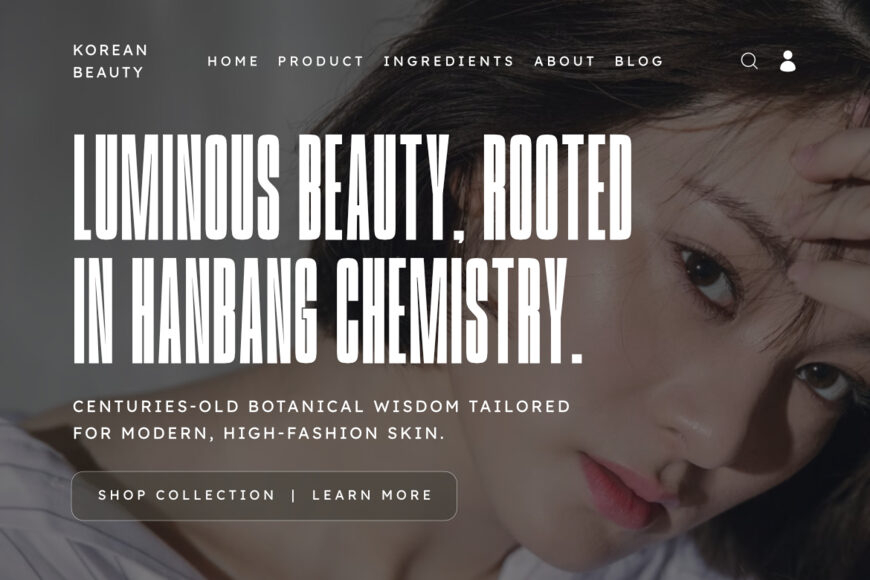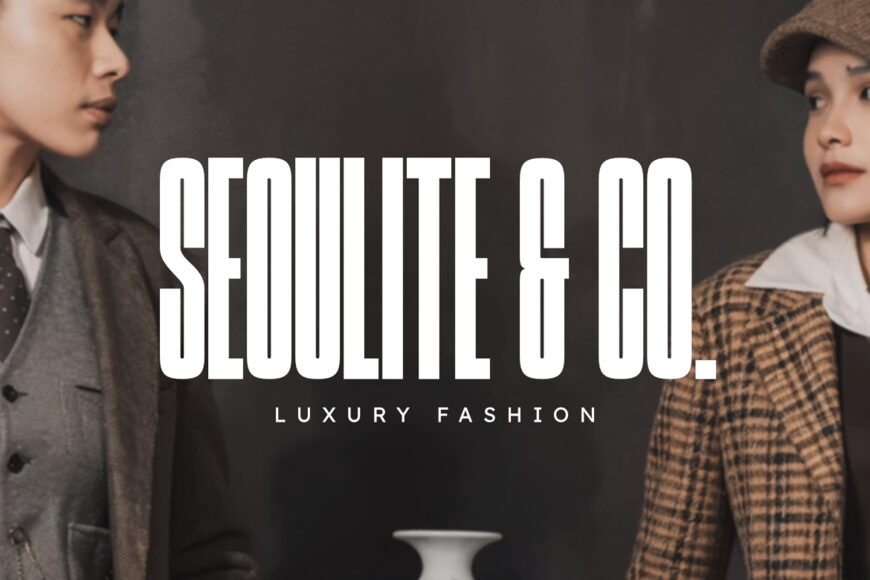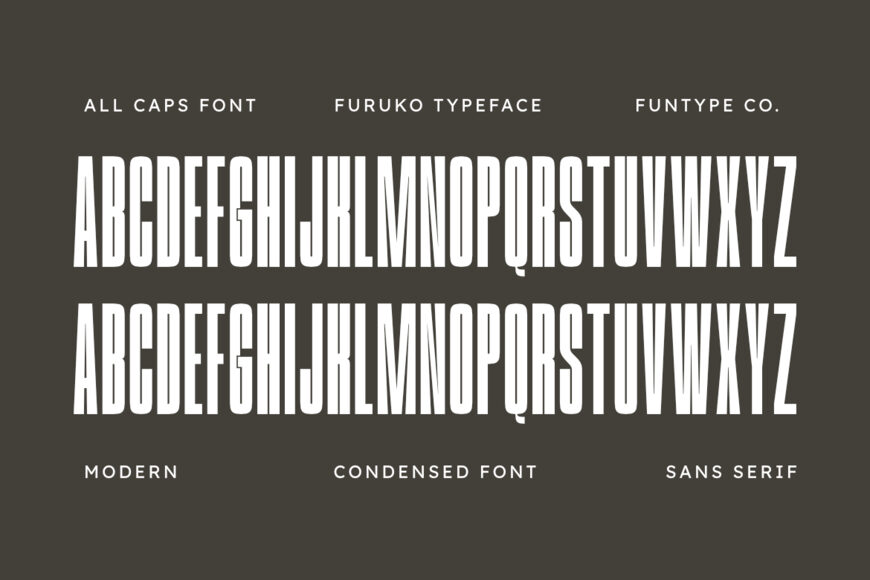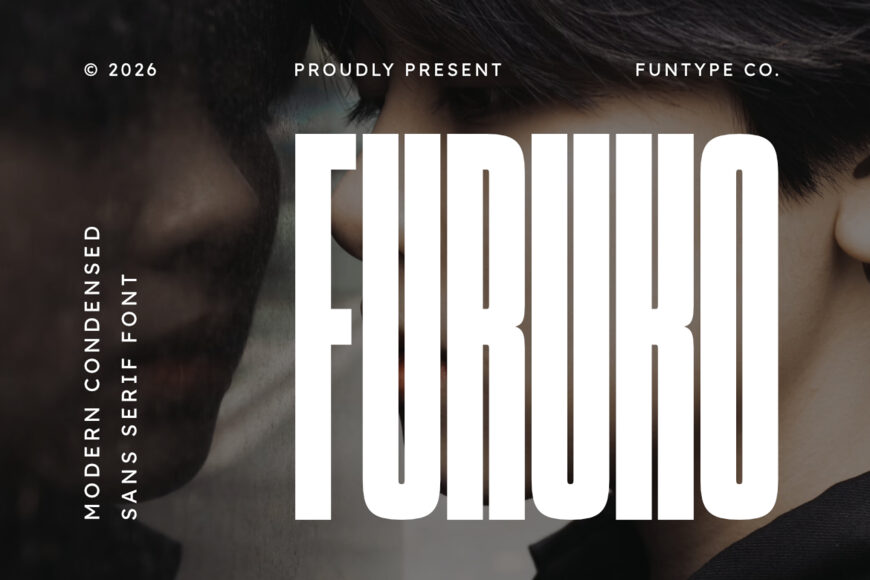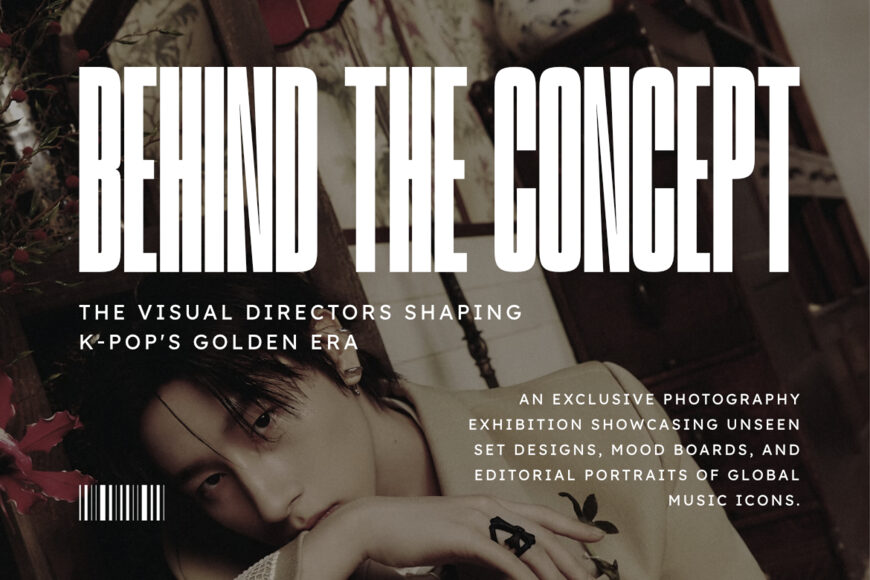
Furuko Font
Make a bold, contemporary statement with Furuko! This modern condensed sans-serif font combines ultra-tall vertical proportions with sleek, narrow letterforms and subtly rounded outer corners. Ideal for high-fashion editorial headlines, movie posters, luxury brand logos, streetwear apparel designs, magazine covers, event flyers, social media graphics, and modern web banners!